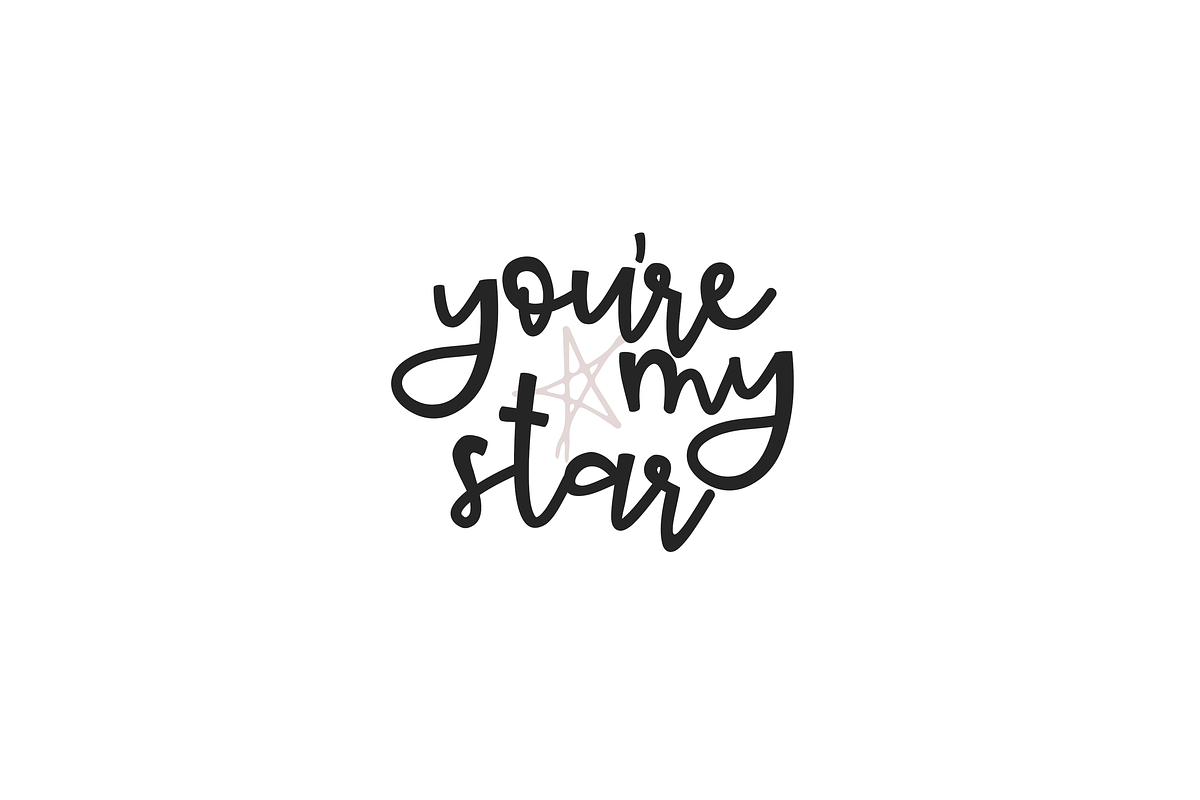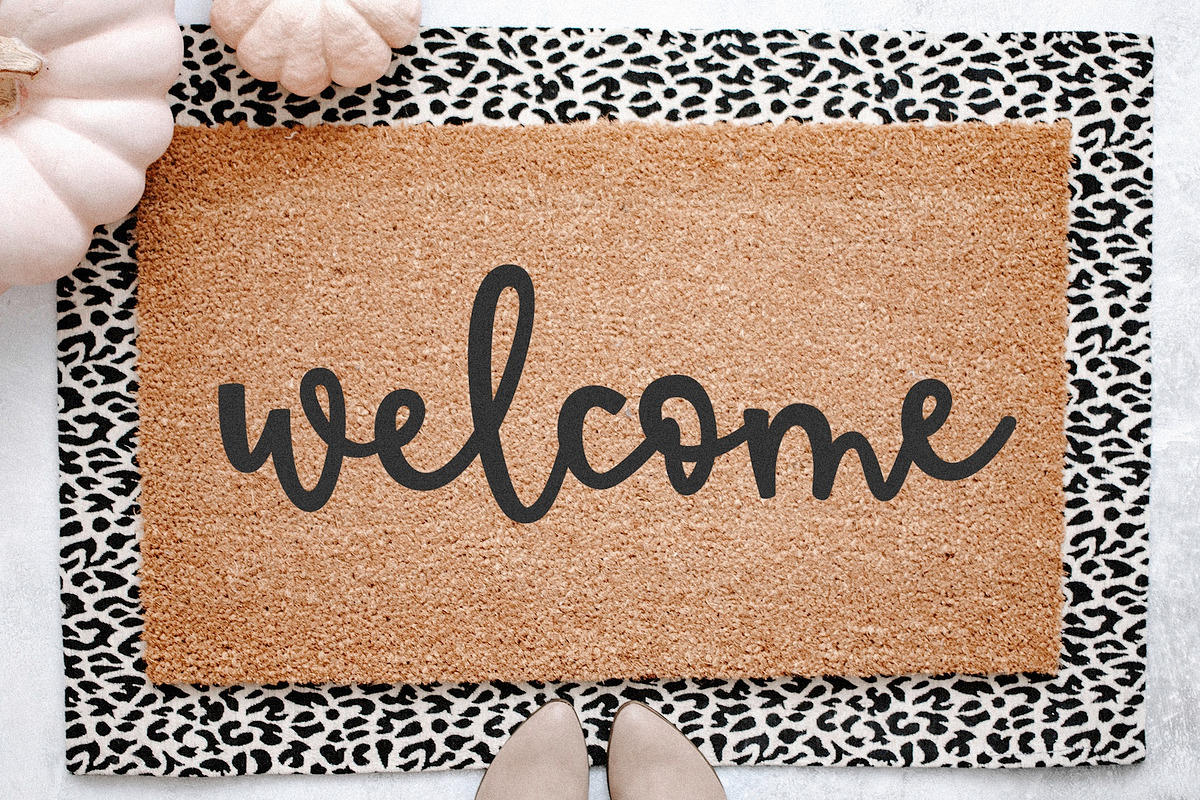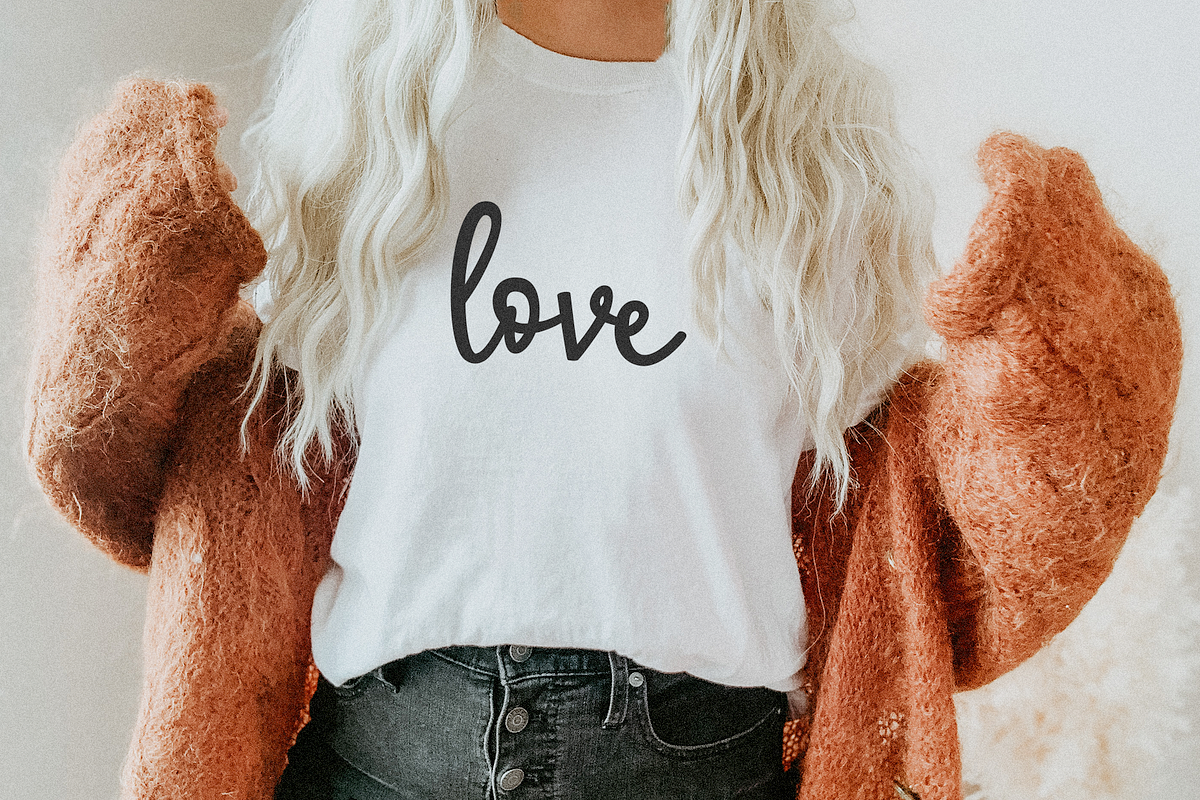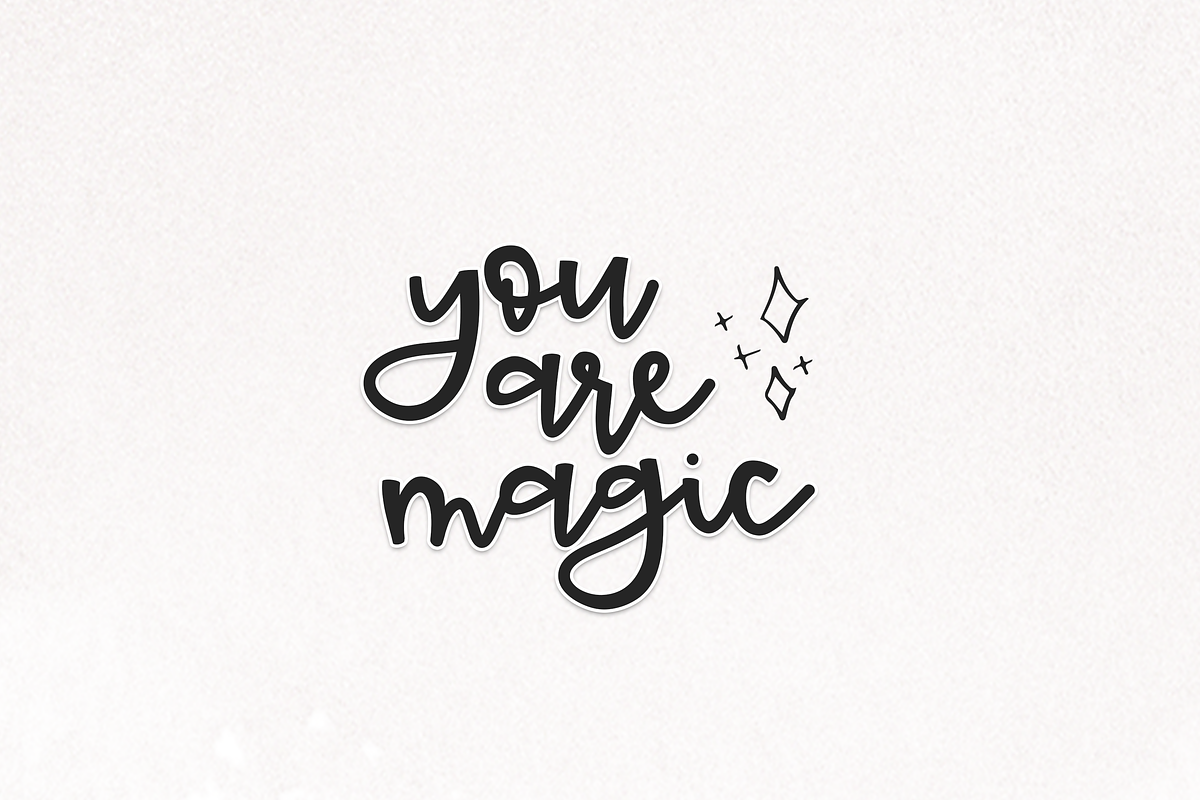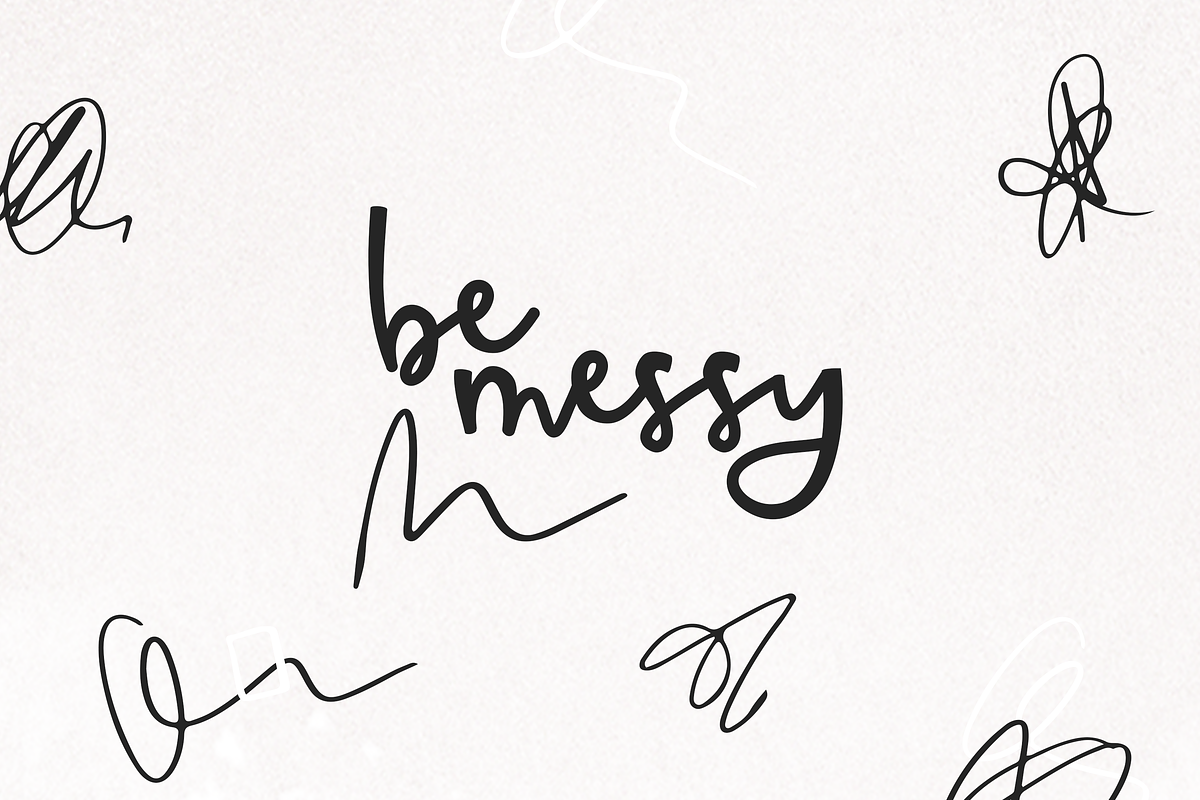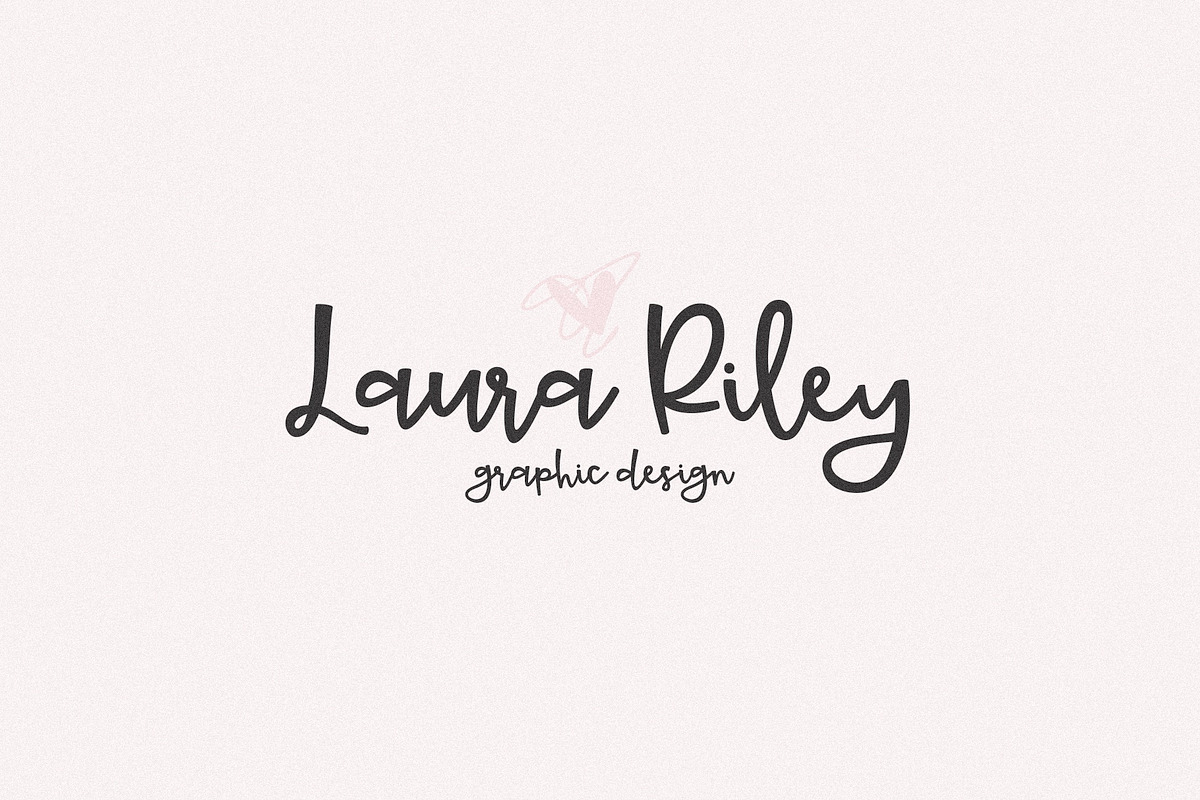
Alluring - A Handwritten Script Font
Alluringis a handwritten script font. The letters are fun and bold.
This font is perfect for quotes, headings, blogs, logos, invitations and more!
Access doodles by using Alluring Extras letters A-Z & a-z.
Alluring Extras (doodles font)